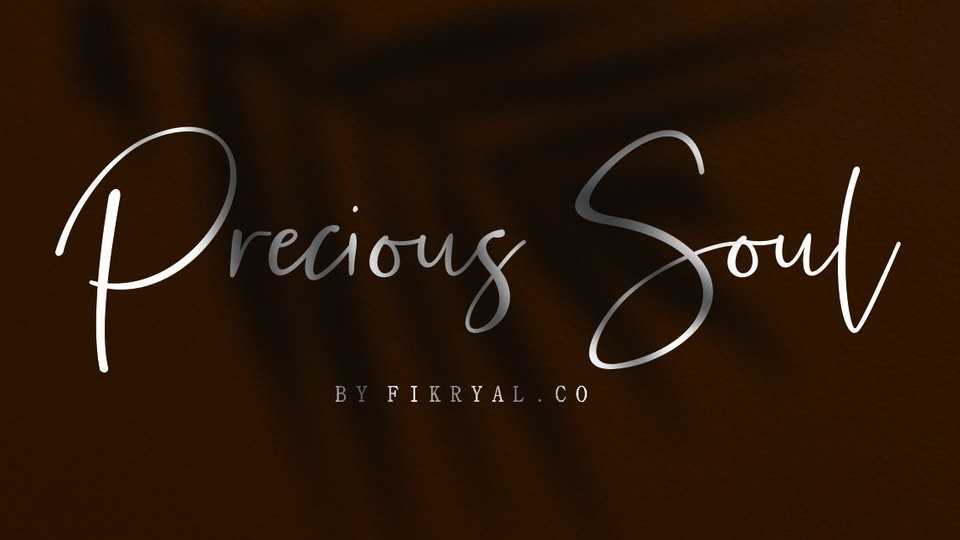
Download Precious Soul font, a modern and stylish signature style handwritten font. It is perfect for logo, personal branding, invitation, tittle, wedding designs, social media posts, advertisements, product packaging, product designs, label and more.
Designer: Fikry Alif